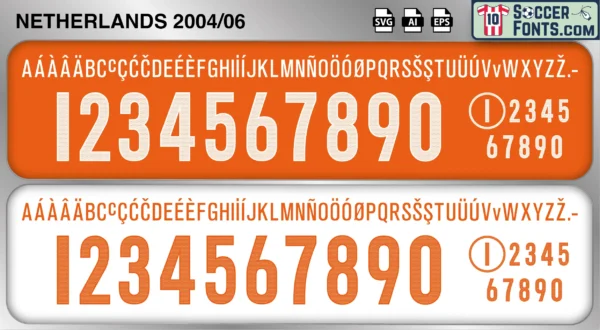
Netherlands 2004-06 Font
The Netherlands 2004-06 font is an editable soccer jersey lettering design in vector format inspired by the Netherlands kit style used during the 2004-06 football seasons. This football font artwork is prepared for football shirt recreations, custom jersey projects, football kit mockups and sports graphic design workflows.
The 2004-06 period revolved around UEFA EURO 2004 and the emergence of a new generation of Dutch footballers. The Netherlands arrived at the tournament with a blend of experienced internationals and exciting young talent, including Ruud van Nistelrooy, Arjen Robben, Wesley Sneijder, Rafael van der Vaart, Giovanni van Bronckhorst and Edwin van der Sar. The Dutch reached the semi-finals of UEFA EURO 2004 and demonstrated the technical quality and attacking football that have long defined the national team. The tournament also introduced several players who would become central figures in Dutch football throughout the following decade.
The Netherlands 2004-06 font became associated with the beginning of the Robben-Sneijder era and the road toward the 2006 FIFA World Cup in Germany. During this period, the national team continued evolving while preserving the football identity that made the Netherlands one of the sport’s most admired nations. Netherlands shirts from this era remain highly collectible because of their connection with a generation that blended creativity, tactical intelligence and technical excellence. The Netherlands 2004-06 font reflects a period of renewal and optimism, capturing a team that successfully bridged the gap between legendary predecessors and the next wave of Dutch international stars.